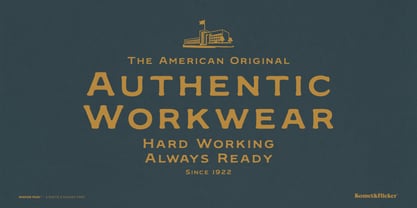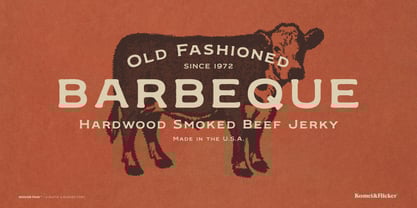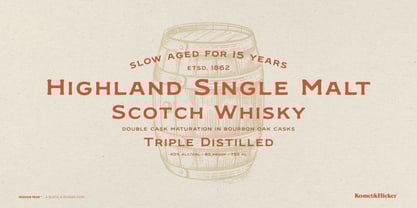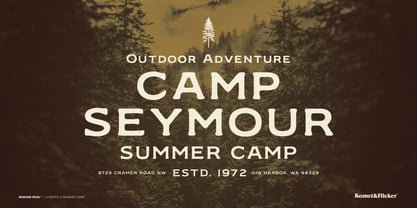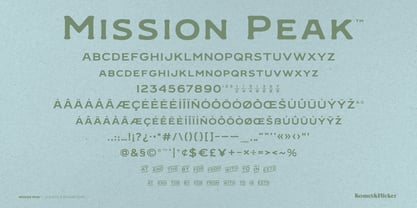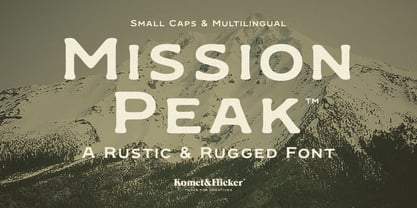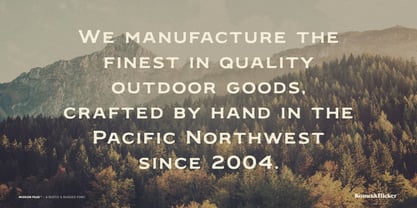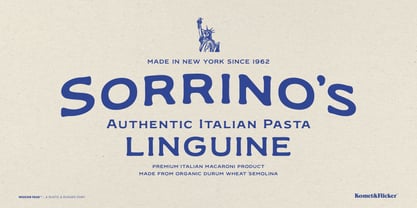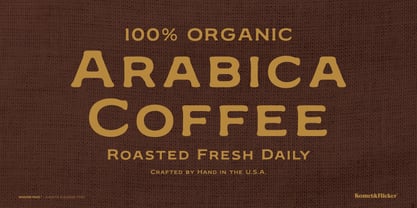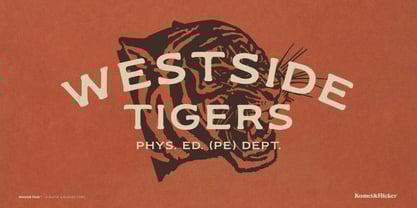
Mission Peak
by Komet & Flicker
The Mission Peak Font Family was designed by David Phillips and published by Komet & Flicker. Mission Peak contains 1 styles.
Ascend to Mission Peak, the small caps font that embodies the spirit of outdoor adventure!
This font’s rugged charm brings a rustic, well-worn feel to your designs, infusing them with a sense of authenticity that resonates with outdoor enthusiasts and wanderers alike.
Whether you’re crafting branding for outdoor-themed projects, cozy coffee shops, vintage apparel, or artisanal beer and spirits labels, Mission Peak is your go-to choice. Its rustic letterforms evoke the great outdoors, making every word feel like an invitation to explore.
Plus, Mission Peak comes with a unique set of 20 custom connecting words (10 words in two styles), designed to add seamless flow to your typography. Elevate your design game with Mission Peak, and let every project tell its own story of adventure!
• Full A-Z uppercase basic latin characters
• Select European specific characters
• Numbers, punctuation, and select symbols
• Set of 20 total custom connecting word glyphs (10 words in two styles)